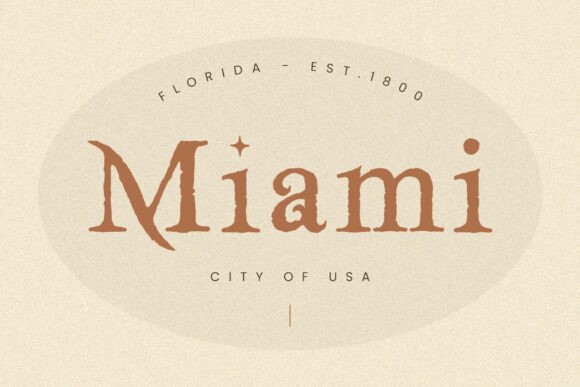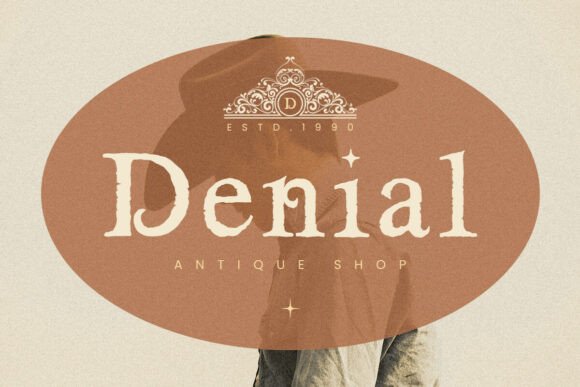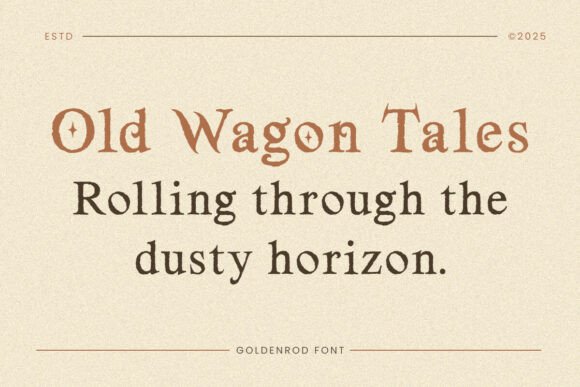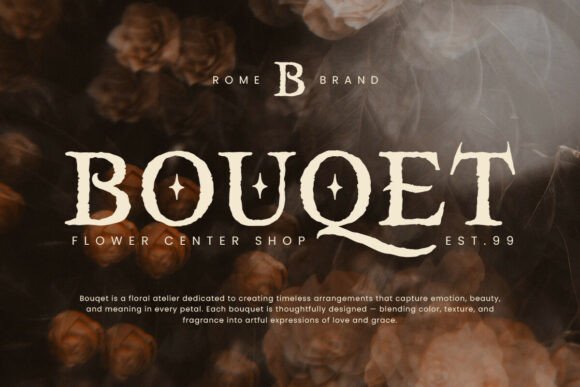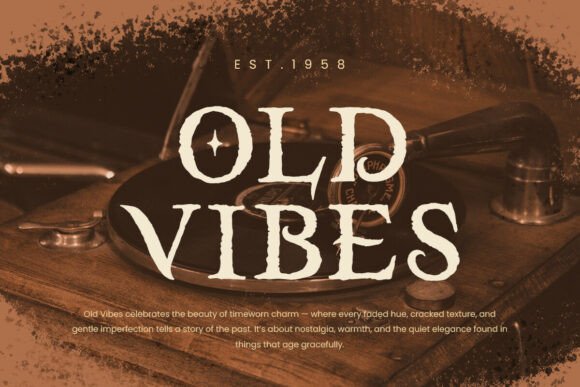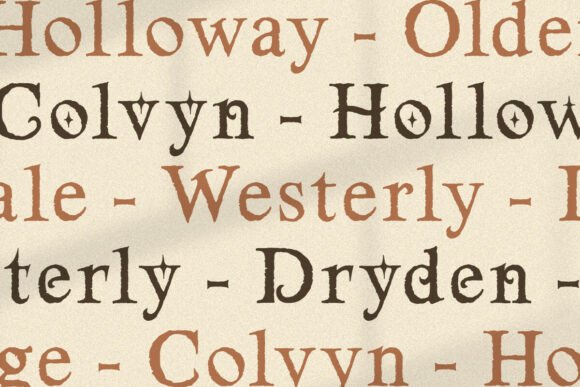
Introducing Goldenrod Font: A Timeless Serif Typeface for Elegant Designs
Are you searching for a font that embodies the essence of medieval charm and vintage elegance? Look no further than Goldenrod, a beautifully crafted serif font designed to bring a touch of nostalgia and sophistication to your creative projects. With its unique blend of old-world craftsmanship and refined readability, Goldenrod is the perfect choice for designers and crafters seeking to add a dash of timeless charm to their branding, packaging, and editorial designs.
A Font Inspired by Antique Lettering and Heritage Typography
Goldenrod font draws inspiration from the intricate details of antique lettering and heritage typography, transporting you back to an era of elegance and refinement. The font’s softly textured edges, elegant serif forms, and decorative details evoke a sense of handcrafted nostalgia, perfect for creating a vintage atmosphere in your designs. Whether you’re working on a branding project, packaging design, or editorial layout, Goldenrod’s medieval personality is sure to captivate your audience.
Two Styles to Suit Your Design Needs
Goldenrod font comes in two distinct styles: Regular and Decorative. The Regular style offers a cleaner, more versatile approach, ideal for a wide range of brand applications, from logos and signage to editorial layouts. The Decorative style, on the other hand, adds a touch of personality and flair, perfect for creating standout headlines and attention-grabbing titles. Both styles work seamlessly together, allowing you to mix and match to achieve the perfect balance of elegance and whimsy.
Ideal for Vintage Branding and Creative Projects
Goldenrod font is incredibly versatile, making it suitable for a variety of creative projects. Some of the ideal applications for this font include:
- Vintage branding and antique stores: Add a touch of nostalgia and heritage to your brand identity with Goldenrod’s elegant serif forms and decorative details.
- Boutique packaging: Create luxurious and eye-catching packaging designs that evoke a sense of high-end quality and sophistication.
- Floral identities: Combine Goldenrod’s natural, elegant feel with your floral designs to create beautiful and captivating brand identities.
- Book covers: Add a touch of classic charm to your book covers with Goldenrod’s decorative style, perfect for fiction, fantasy, and historical novels.
- Café branding: Create a warm and inviting atmosphere for your café or bakery with Goldenrod’s warm, vintage feel.
- Wine labels: Elevate your wine labels with Goldenrod’s sophisticated, elegant design, perfect for wine bottles and packaging.
- Editorial layouts: Use Goldenrod’s Regular style to create clean, readable editorial layouts for magazines, newspapers, and online publications.
- Fantasy-inspired projects: Let Goldenrod’s medieval personality transport you to a world of fantasy and imagination, perfect for book covers, game designs, and more.
A Font that Combines Craftsmanship with Readability
Goldenrod font is not just a beautiful design element; it’s also highly readable, making it perfect for body text and longer content. The font’s elegant serif forms and carefully crafted lettering ensure that your text is easy to read, even at smaller sizes. This makes Goldenrod an excellent choice for designers and crafters seeking to create engaging, well-designed content that resonates with their audience.
Perfect for Artisan Businesses and Storytelling-Focused Visual Identities
Goldenrod font’s medieval personality and vintage charm make it an ideal choice for artisan businesses and storytelling-focused visual identities. Whether you’re a craftsman, artist, or writer, Goldenrod’s elegant design and nostalgic feel will help you connect with your audience and convey your unique story. Use Goldenrod to create a brand identity that reflects your values, craftsmanship, and attention to detail.
| Font Name | Goldenrod Font |
| Author | Typehand Studio |
In conclusion, Goldenrod font is a timeless serif typeface that brings a touch of medieval charm and vintage elegance to creative projects. With its softly textured edges, elegant serif forms, and decorative details, Goldenrod is perfect for designers and crafters seeking to add a dash of nostalgia and sophistication to their branding, packaging, and editorial designs. Whether you’re working on a vintage branding project, boutique packaging, or fantasy-inspired design, Goldenrod’s unique blend of craftsmanship and readability makes it an excellent choice.